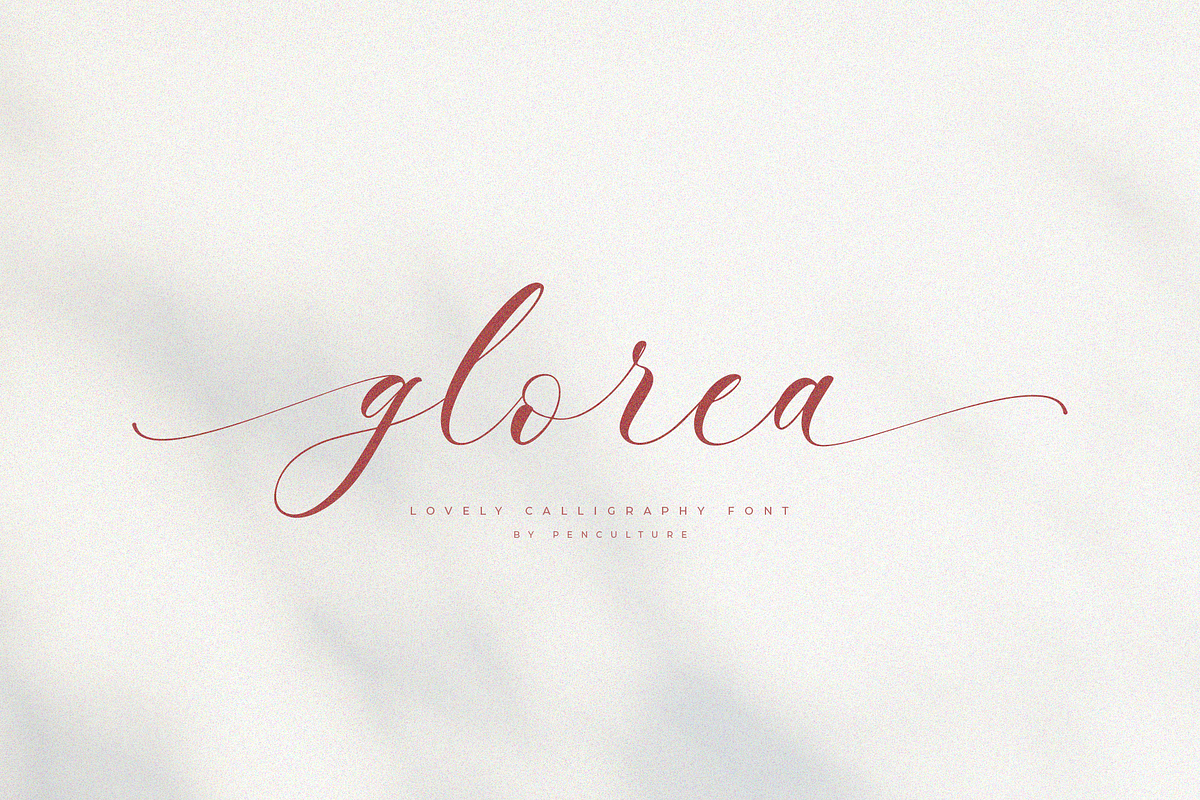
Glorea - A Lovely Calligraphy Font Free Download
Infuse your designs with elegance and charm with Glorea - A Lovely Calligraphy Font Free Download. This stunning calligraphy font features delicate, flowing letterforms that evoke a sense of romance and sophistication, making it perfect for wedding invitations, logos, greeting cards, and other elegant designs.
Glorea brings a refined, handwritten touch with its smooth curves and graceful strokes. It includes uppercase and lowercase letters, numerals, punctuation, and ligatures, offering you the flexibility to create personal and polished typography for your creative projects.